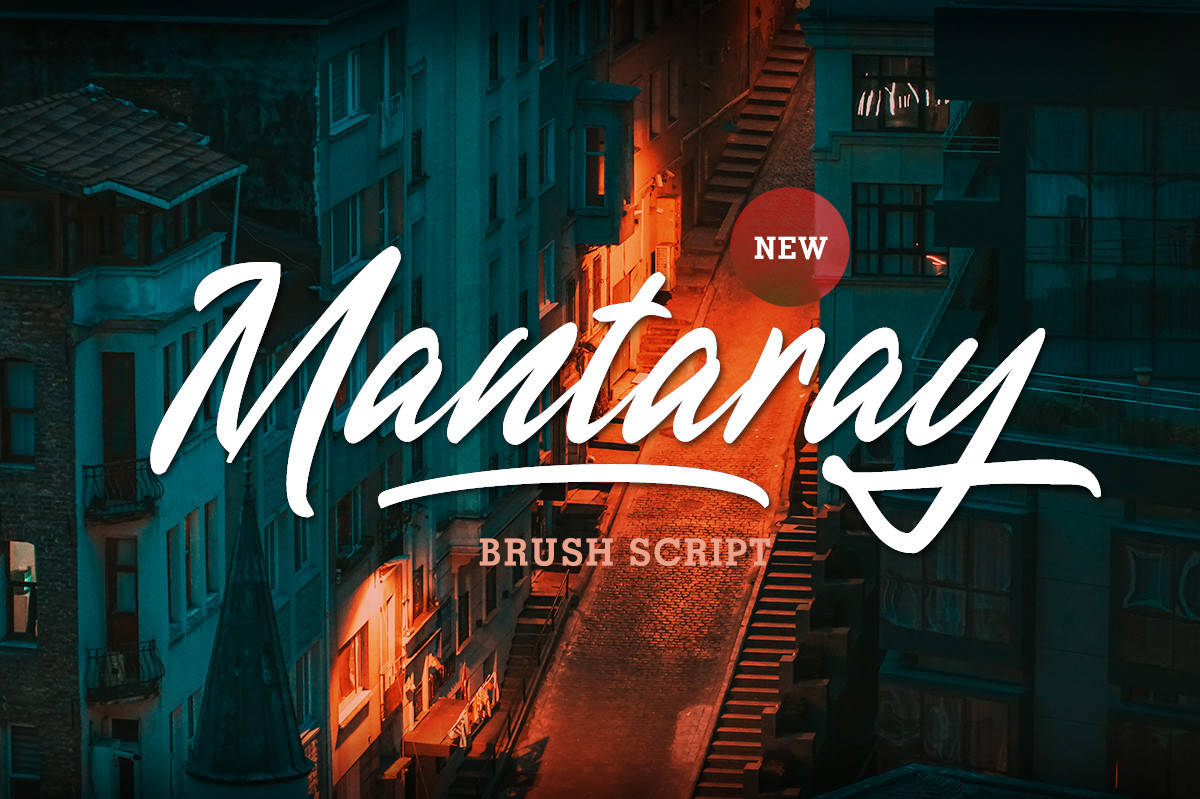
Mantaray Font
This fluid and dynamic typeface is perfect for aquarium branding, marine research institutions, underwater photography studios, scuba diving equipment, ocean conservation organizations, surf brand logos, water sports marketing, marine biology textbooks, and aquatic-themed entertainment venues that require a flowing, oceanic aesthetic.
Mantaray Font brings excitement to design projects with its graceful, undulating letterforms that capture the elegant movement of manta rays gliding through ocean waters. The font features smooth, flowing curves and organic shapes that evoke the serene beauty of marine life while maintaining excellent readability. Its aquatic-inspired design elements and fluid character make it an ideal choice for brands that want to communicate the mystery, grace, and natural beauty of underwater environments in their visual storytelling.
The Mantaray Font family includes various oceanic styles: Regular, Bold, Light, Flow, Condensed, Wave, and Italic versions. Each variant maintains the font's distinctive aquatic character while providing designers with creative flexibility for different marine applications. The family also features special ocean-themed glyphs, wave-inspired decorative elements, marine life symbols, and comprehensive character sets that enhance the overall underwater aesthetic.
When searching for aquatic typography solutions, Mantaray Font Free Download offers an unmatched combination of fluidity and professional appeal. Professional designers favor this font for its ability to instantly transport audiences into the peaceful world of ocean depths while ensuring clear communication across various media. The typeface works exceptionally well in both digital marine documentaries and printed conservation materials, preserving its flowing elegance at every application.
The font's marine-inspired excellence includes carefully crafted curves that mimic natural water movement, thoughtful spacing that creates visual flow, and subtle variations that prevent mechanical repetition. Whether you're designing for marine research facilities, aquatic entertainment venues, or ocean conservation campaigns, this font delivers the authentic aquatic touch that connects audiences with the wonder of marine life.
For creative professionals working with ocean-related brands and environmental organizations, this font represents a valuable asset for creating immersive aquatic experiences. Its versatile nature allows it to adapt to both scientific presentations and artistic installations while maintaining its distinctive marine character. Download this exceptional typeface today and discover how fluid typography can transform your projects into captivating underwater journeys that inspire ocean appreciation and conservation awareness.